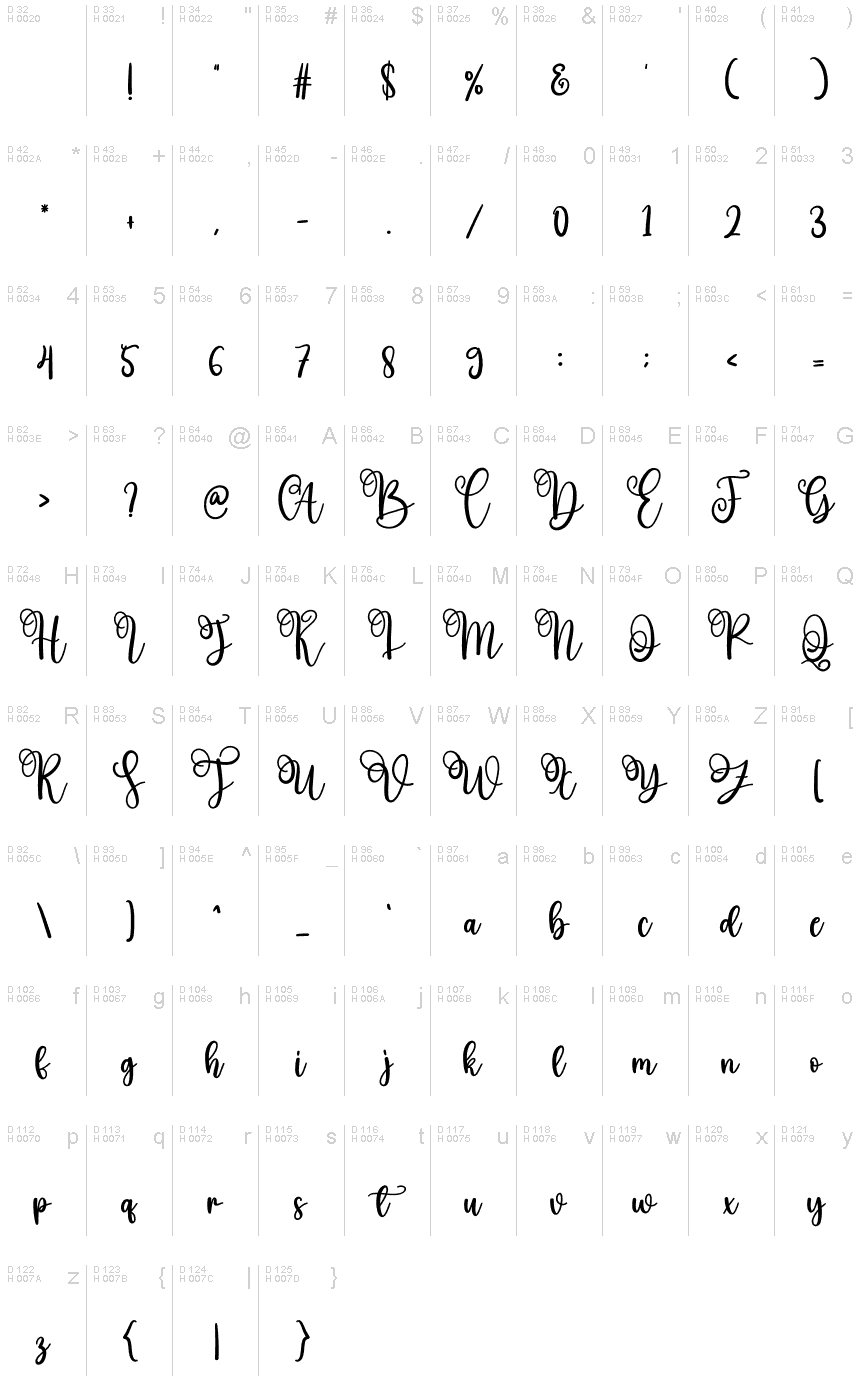
Quotes
Quotes, the exquisite calligraphy font designed by scratchones, is a stunning addition to any design project. Its elegant strokes and graceful curves create an atmosphere of sophistication and luxury. This semi-bold font is perfect for wedding invitations, branding materials, and social media graphics. The width of the typeface makes it ideal for creating bold headlines or subtle emphasis within text. With its timeless appeal, Quotes is a versatile choice for designers looking to add a touch of refinement to their work. So go ahead and elevate your next project with Quotes!
the latest style letters are perfect for wall displays, wedding invitations, social media post logos, advertisements, product packaging, product designs, labels, photography, watermarks, invitations, stationery, and any project that requires taste handwriting.